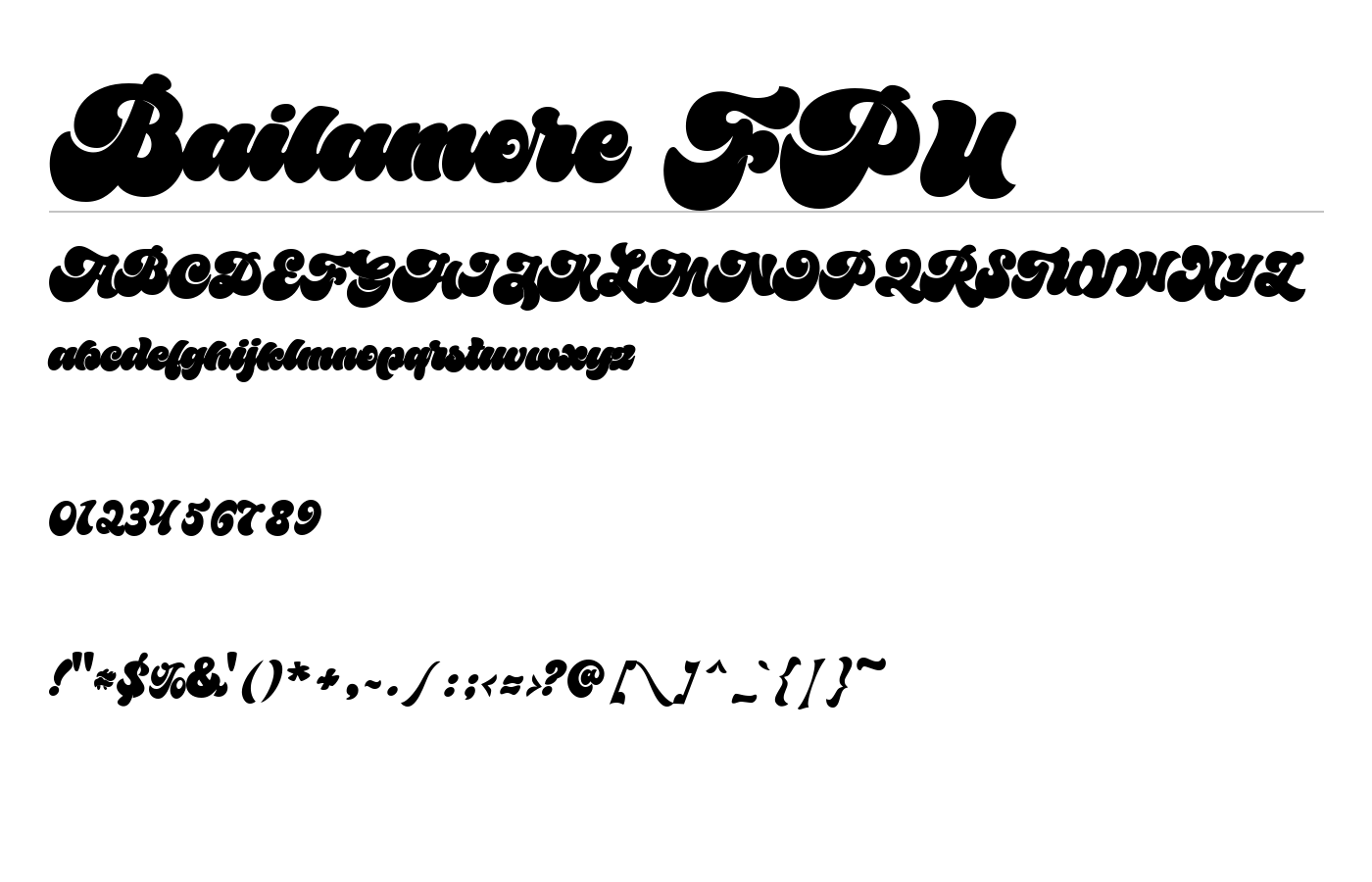
Bailamore FPU is a bold, decorative script font with thick, rounded strokes that give it a playful and eye-catching personality. Its dense letterforms and smooth, flowing curves make it ideal for display use in logos, posters, and branding that seek a fun and energetic vibe. This font shines best in large sizes where its unique charm and strong presence can truly stand out.
Bailamore FPU Font
About Bailamore FPU Font
| Font family | Bailamore FPU Font |
| Designer | Muhammad Ridha Agusni |